Five Pixel Fonts for Gaming, Motion, and Branding
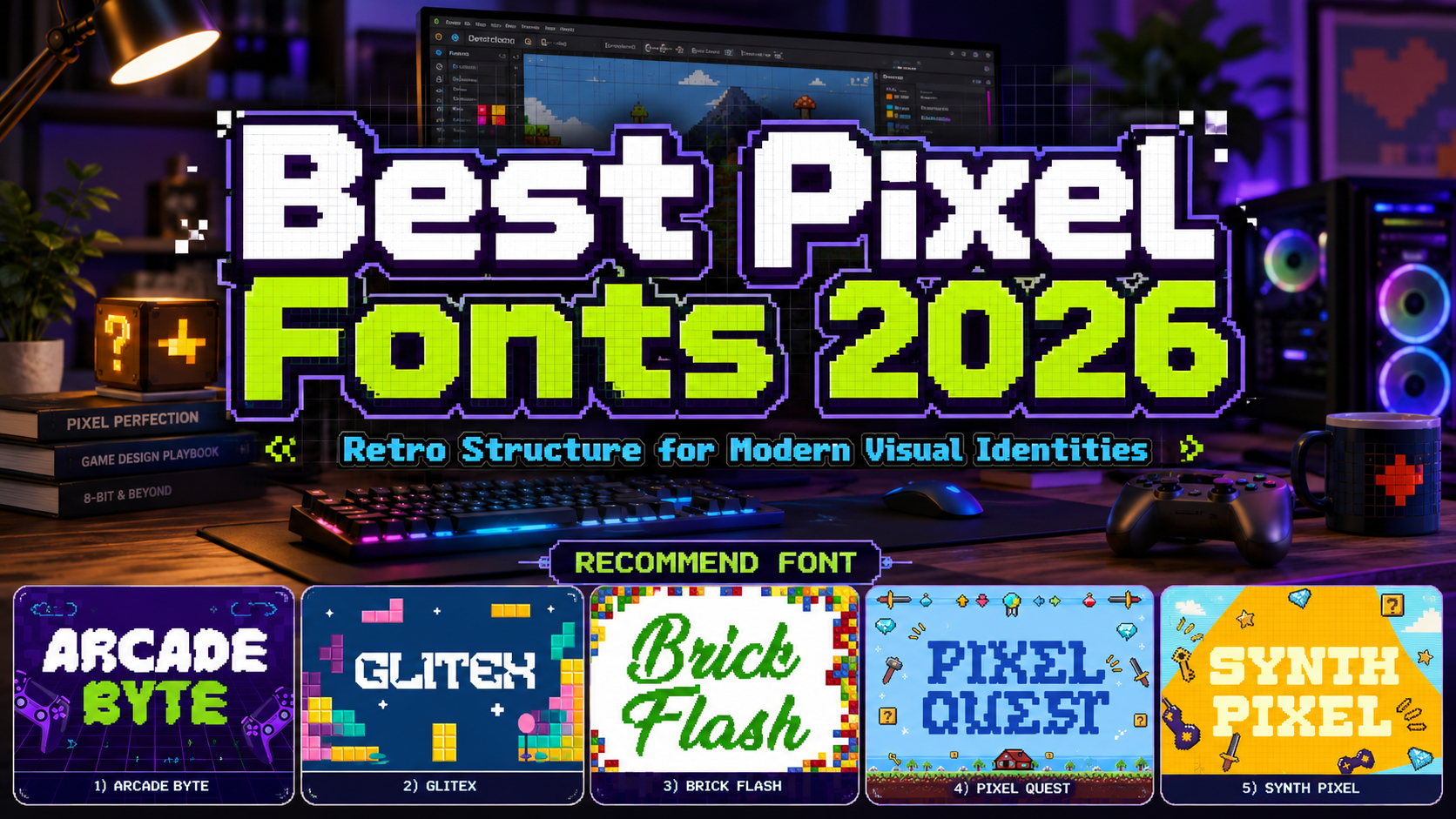
Use Pixel Fonts as Display Typography
The strongest best pixel fonts 2026 choices should lead a design rather than carry long passages. Use them for logos, game titles, posters, thumbnails, product names, or short campaign headlines, then pair them with a clean sans serif for instructions, menus, captions, and body copy.
Pixel typography is no longer limited to imitating old arcade screens. Contemporary artists also use it in advertising, music videos, experimental artwork, and modern games because its simplified structure can communicate with unusual clarity.
Why Pixel Fonts Feel Current
Pixel fonts connect 8-bit and 16-bit nostalgia with Y2K design, virtual products, technology campaigns, digital collectibles, and motion-led identities. The best projects avoid rebuilding an entire retro interface. Instead, they combine pixel lettering with contemporary photography, clean layouts, 3D lighting, or smooth animation.
Scale pixel lettering by whole-number values whenever possible and avoid unnecessary blur. Always test mobile previews and video exports because compression can soften the edges.
1. Arcade Byte Pixel Game Font
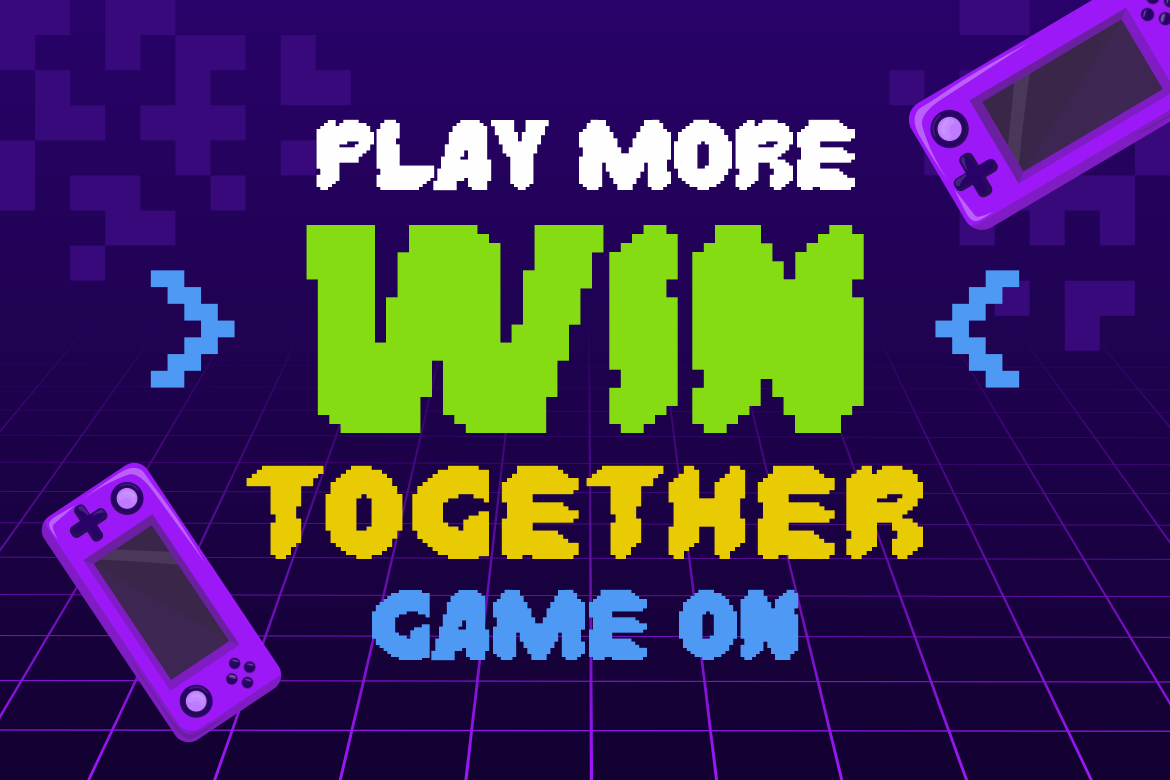
Arcade Byte uses compact block forms, thick strokes, square edges, and stepped corners. Its strict grid geometry immediately recalls classic arcade machines while remaining bold enough for modern titles and thumbnails.
PROS: Strong arcade recognition, compact construction, excellent visibility.
BEST FOR: Game logos, esports, coding courses, Twitch graphics, and YouTube thumbnails.
2. Glitex Pixel Font
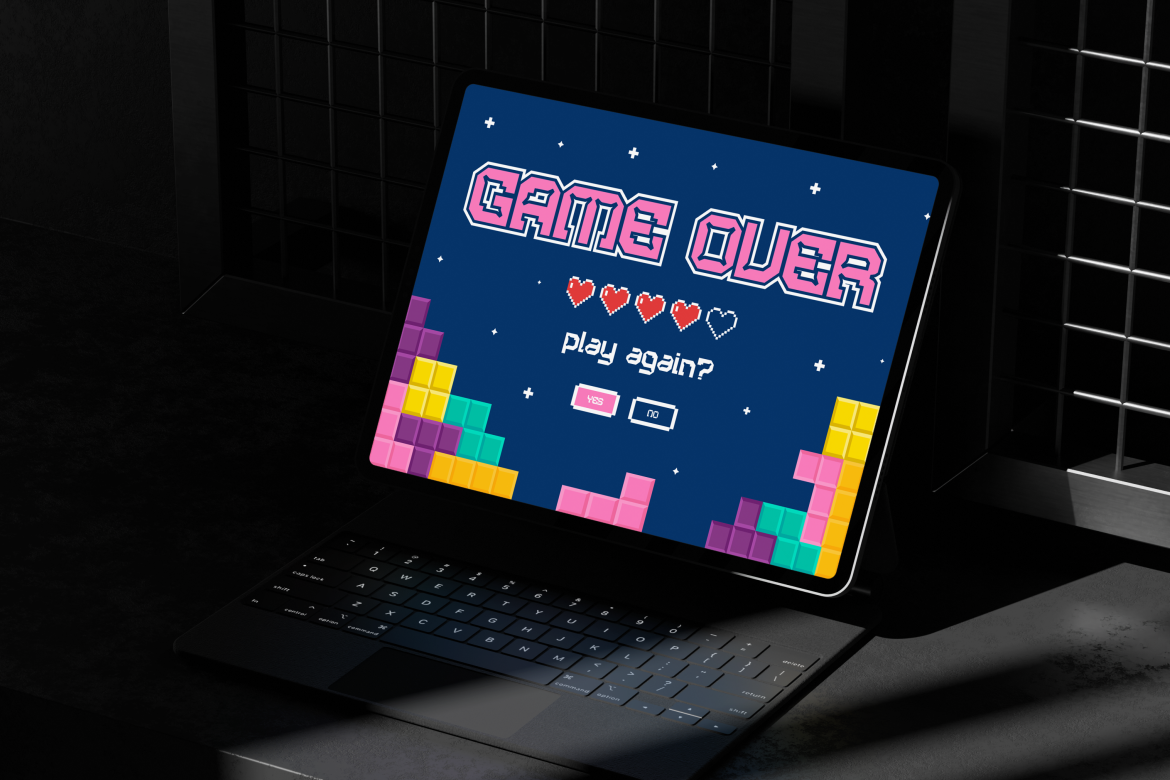
Glitex combines sharp geometric contours with consistent modular pixel detailing. Its balanced spacing gives it a cleaner, more futuristic character than many rough retro fonts, making it useful for playful and technology-focused identities.
PROS: Balanced spacing, modular rhythm, futuristic energy.
BEST FOR: Gaming interfaces, esports, product labels, digital ads, and tech startups.
3. Brick Flash Pixel Font
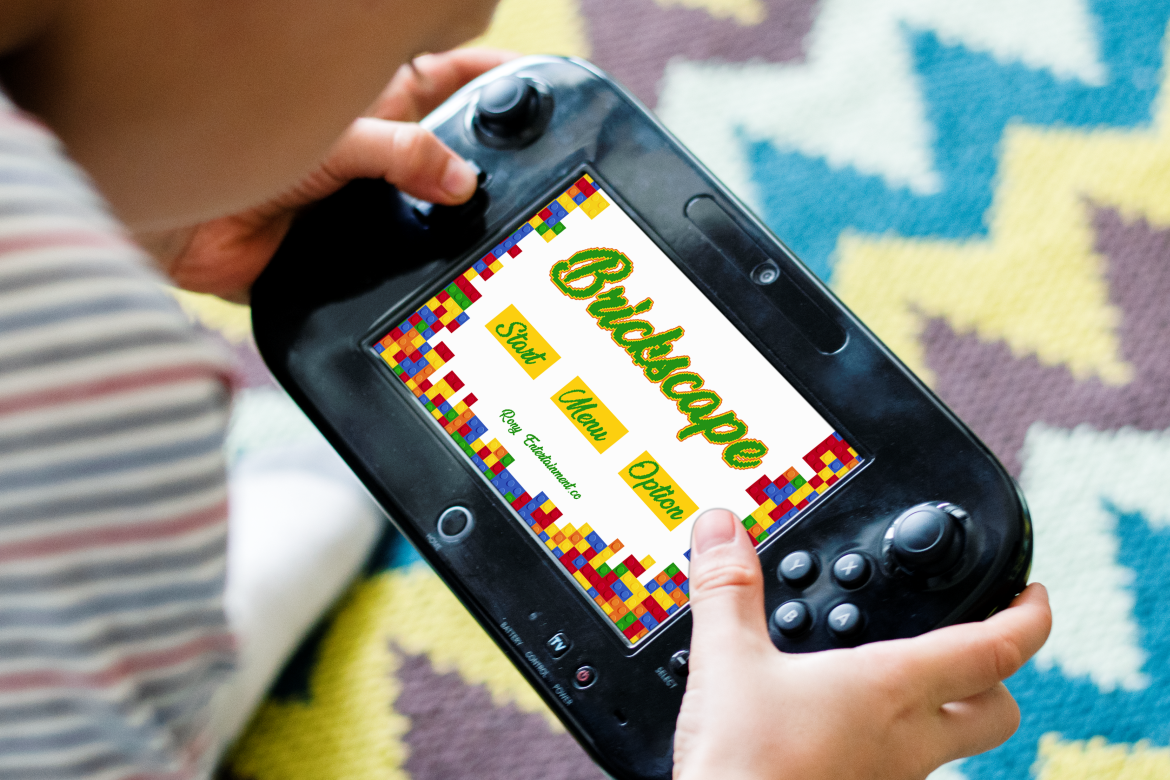
Brick Flash combines flowing script rhythm with crisp square pixel construction. It feels emotional and handcrafted while retaining a clear digital structure, offering an alternative to rigid all-caps arcade lettering.
PROS: Distinctive pixel script, energetic movement, memorable personality.
BEST FOR: Toy branding, playful games, merchandise, neon graphics, and creator campaigns.
4. Pixel Quest Pixel Font
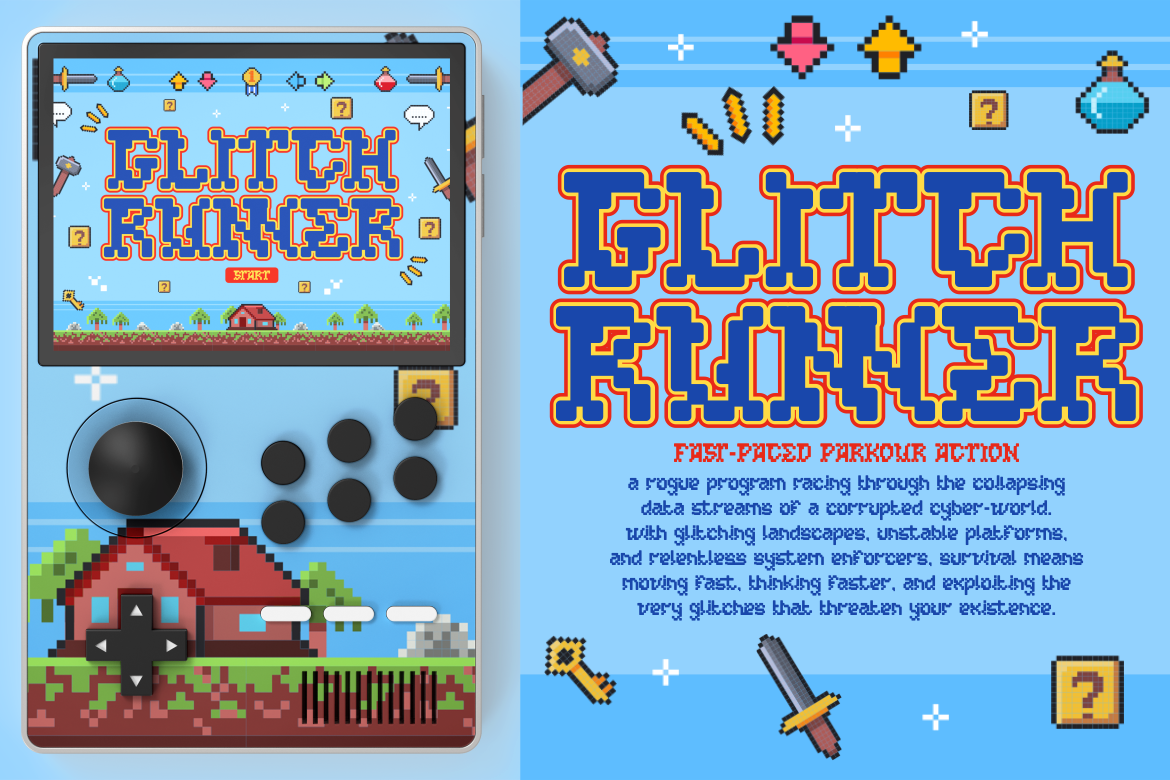
Pixel Quest uses bold rounded pixels and an 8-bit structure inspired by classic arcade and role-playing games. Its playful but sturdy forms work naturally with fantasy visuals, colorful environments, and younger audiences.
PROS: Friendly pixel edges, adventurous mood, strong genre clarity.
BEST FOR: RPG titles, children’s projects, Twitch overlays, comics, and gaming merchandise.
5. Synth Pixel Y2K Game Font
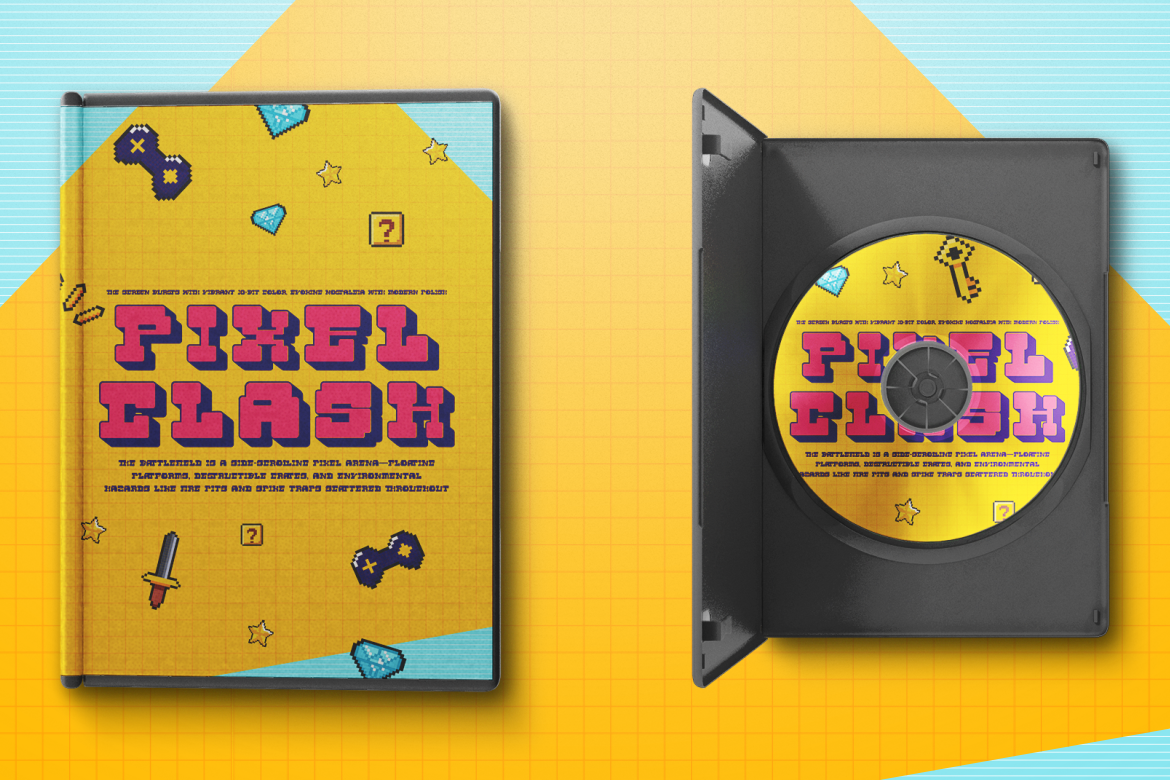
Synth Pixel combines chunky early-console influences with a stronger Y2K direction. Its square forms, smooth edges, and flat or stacked-shadow treatments bridge gaming nostalgia with dimensional future-tech branding.
PROS: Y2K personality, dimensional options, strong block proportions.
BEST FOR: Indie games, digital collectibles, arcade logos, music artwork, and retro-tech campaigns.
Using Pixel Typography Effectively
Keep headlines concise so the grid remains visible. Phrases such as FINAL LEVEL, INSERT COIN, DIGITAL QUEST, or NEW GAME+ work better than long sentences.
Limit the palette to two or three main colors, then add depth with a controlled shadow, outline, or glow. In motion graphics, use tile-by-tile reveals, blinking cursors, or frame-based transitions rather than excessive distortion.
For branding, let the pixel font create recognition while a functional companion handles product descriptions, navigation, specifications, and legal information.
Comparison
| Font | Main Direction | Strongest Application |
|---|---|---|
| Arcade Byte | Classic arcade | Gaming and esports |
| Glitex | Modular future | Technology branding |
| Brick Flash | Pixel script | Playful campaigns |
| Pixel Quest | Fantasy game | RPG and kids’ content |
| Synth Pixel | Dimensional Y2K | Music and retro-futurism |
Common Mistakes
The first mistake is using pixel typography at arbitrary sizes. Non-integer scaling, soft resampling, and heavy compression can blur its grid. Test the export on the real platform and preserve crisp edges whenever possible.
Another mistake is placing pixel fonts over equally complex pixel backgrounds. When the headline, characters, icons, and scenery have the same density, hierarchy disappears. Give the title negative space, strong contrast, or a solid panel.
The final mistake is treating every pixel font as interchangeable. Arcade, fantasy, script, modular, and Y2K styles communicate different moods. Match the typeface to the project and confirm that the selected PutraCetol license covers the intended logo, merchandise, webfont, advertising, app, or game use.
Use these PutraCetol Studio fonts where identity matters most, then support them with clean typography and disciplined layout. Pixel design succeeds when its limitations become a recognizable creative system rather than a decorative effect.